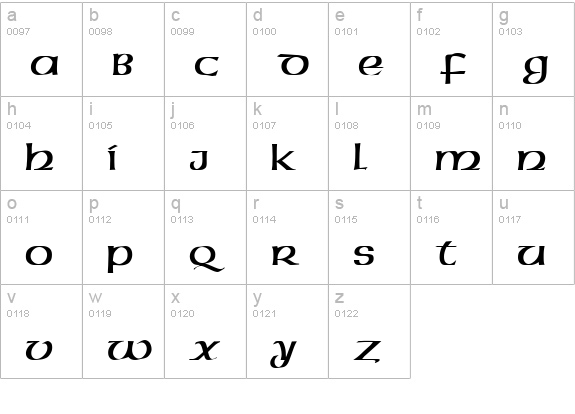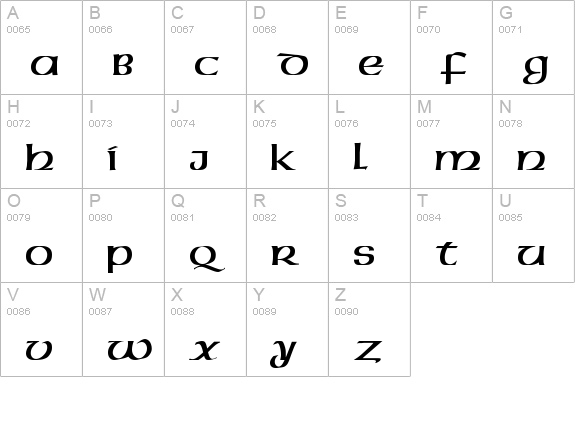
Lateran Font Details
The Lateran font is a modern and elegant typeface that exudes sophistication and style. With its sleek lines and clean design, this font is perfect for a wide range of design projects, from branding to editorial layouts. The Lateran font is versatile and can be used for both headings and body text, making it a great choice for any project. What sets the Lateran font apart is that it is available for free download at FontsMarket.com. This means that you can easily access this high-quality font without any cost, making it a valuable addition to your font library. Whether you're a designer looking to enhance your projects or a creator in need of a stylish font, the Lateran font is a fantastic option that won't break the bank. Download the Lateran font today from FontsMarket.com and elevate your designs with this sleek and contemporary typeface.